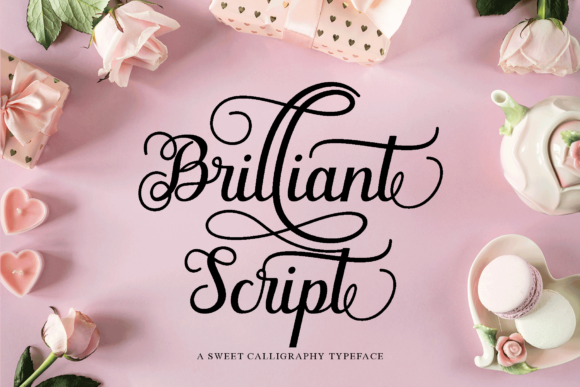
The Magical World of Brilliat Script Font
Have you ever been in the middle of a design project, pouring your heart and soul into it, only to realize that something is missing? You’re not quite sure what it is, but you know it’s not quite right. I’ve been there too! I was working on a luxury branding project for a high-end jewelry client, and I was struggling to find the perfect font that would capture the essence of their brand. That’s when I stumbled upon Brilliat Script Font, and it completely transformed my design.
A Personal Review of Brilliat Script Font
Brilliat Script is a romantic and sweet calligraphy typeface that will add a touch of luxury to any design project. Here’s what I love about it:
- ✨ Beautifully crafted characters that dance along the baseline, creating a sense of movement and elegance.
- 💫 Luxurious feel that’s perfect for high-end branding, packaging, and advertising projects.
Of course, no font is perfect, and Brilliat Script has a few small quirks:
- 🤔 Limited use in body text – while it’s stunning for headings and titles, it’s not the best choice for long blocks of text.
- ⚠️ Some characters may require manual kerning to achieve optimal spacing.
The Story Behind Brilliat Script Font
Brilliat Script Font was designed by a talented typographer who’s passionate about creating beautiful, elegant fonts. The story goes that the designer was inspired by the romantic, handwritten scripts of the 18th century and wanted to create a font that would evoke a sense of luxury and sophistication. After months of careful craftsmanship, Brilliat Script was born.
| What is Brilliat Script Font? | Brilliat Script Font is a romantic and sweet calligraphy typeface with characters that dance along the baseline. |